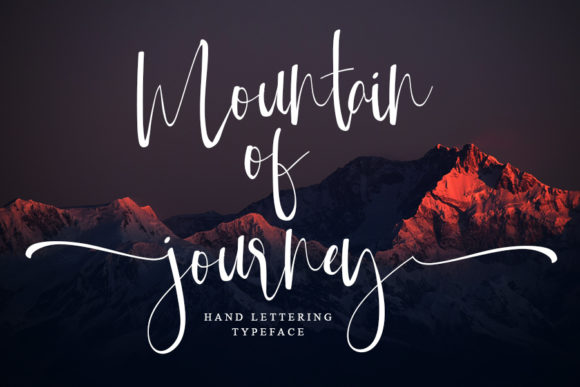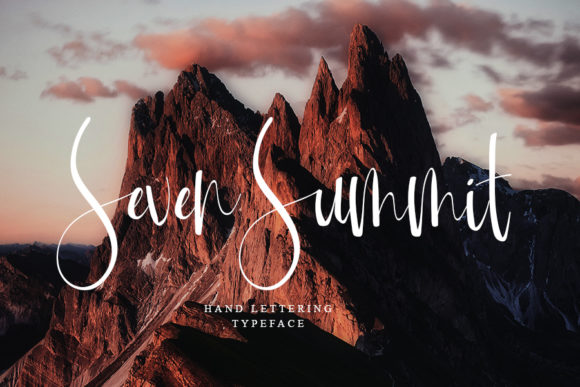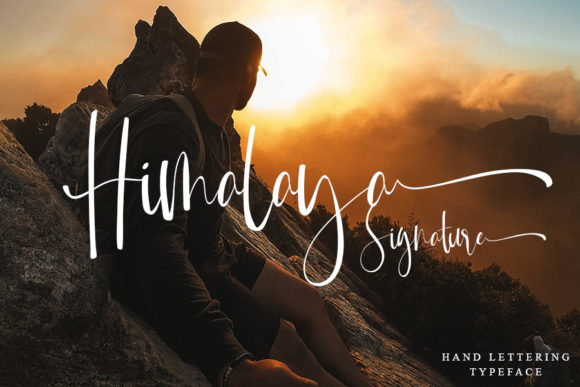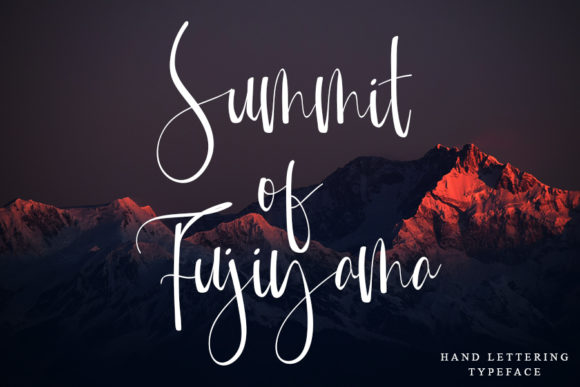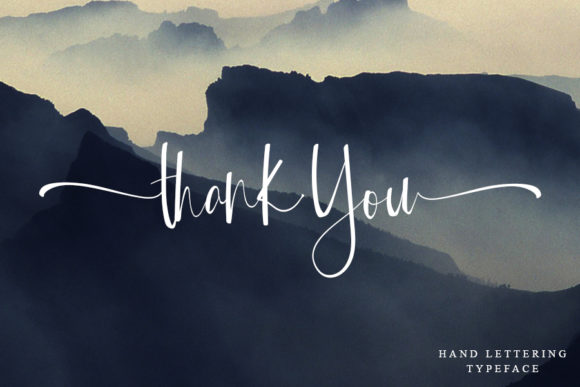
About Mountain of Journey Font
Mountain Of Journey is a modern and stylish script font. It has a clean, thin and smooth vibe and it will be a hit for any design that you want to add it to. This font is PUA encoded which means you can access all of the glyphs and swashes with ease!